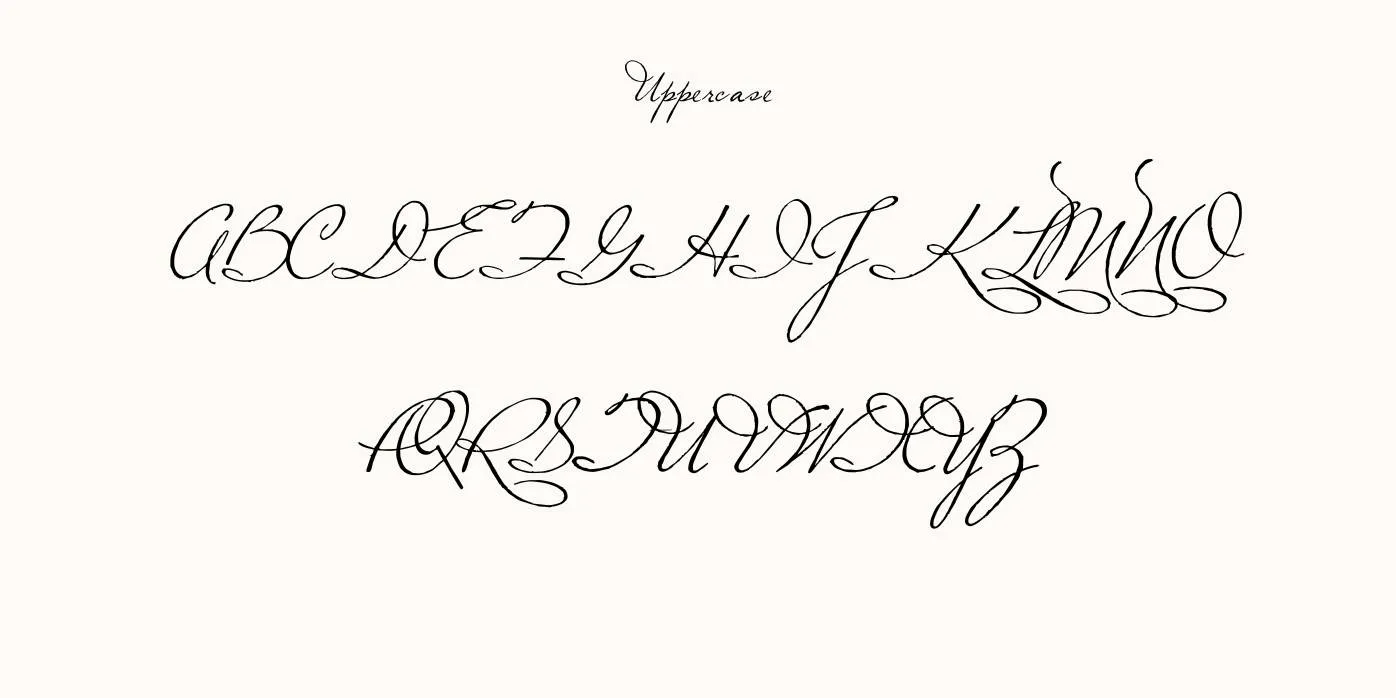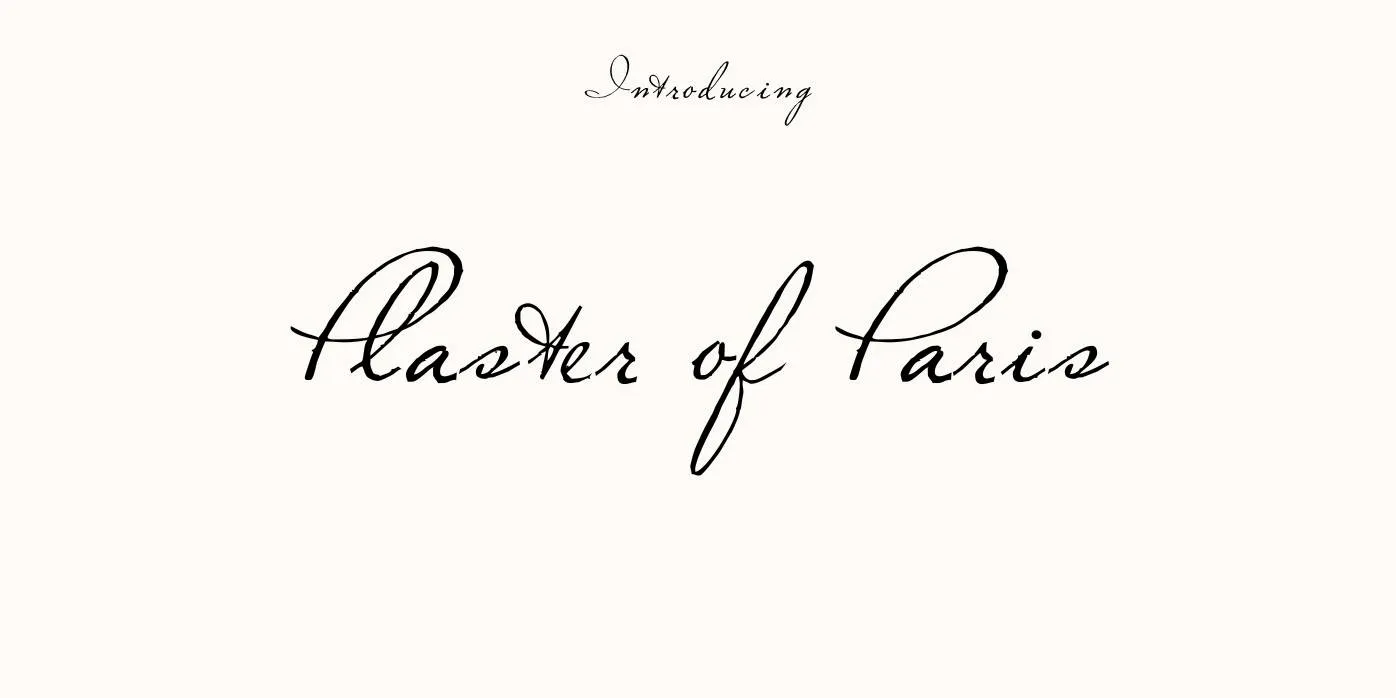
Plaster of Paris Font
We discuss detailed information about the Plaster of Pris Font. It was designed by Paulo W. Its initial release date was 10-08-2013. It falls under version 1.000.
Unicode 2.0 BMP only. The weight of the font and the width of the font is medium (normal). It contains 58 characters,56 glyphs, and 1000 units per Em. An online generator tool can be used for this font to make simple text into a very stylish look.
Usage This font is a very stylish handwritten font and can be used for making so many designs and projects. It can be used for making wedding invitations, or any type of invitation to events. It is a good choice for stylishly making headlines or making book covers and fashion magazines in a stylish style. You can use it for making modern calligraphy designs.
This stunning typeface can also be used for making flyers for different projects. It has characters, symbols, numbers, small letters, capital letters, and punctuation. It can be used for making logos of different brands. You can also use it for making titles and for branding purposes.